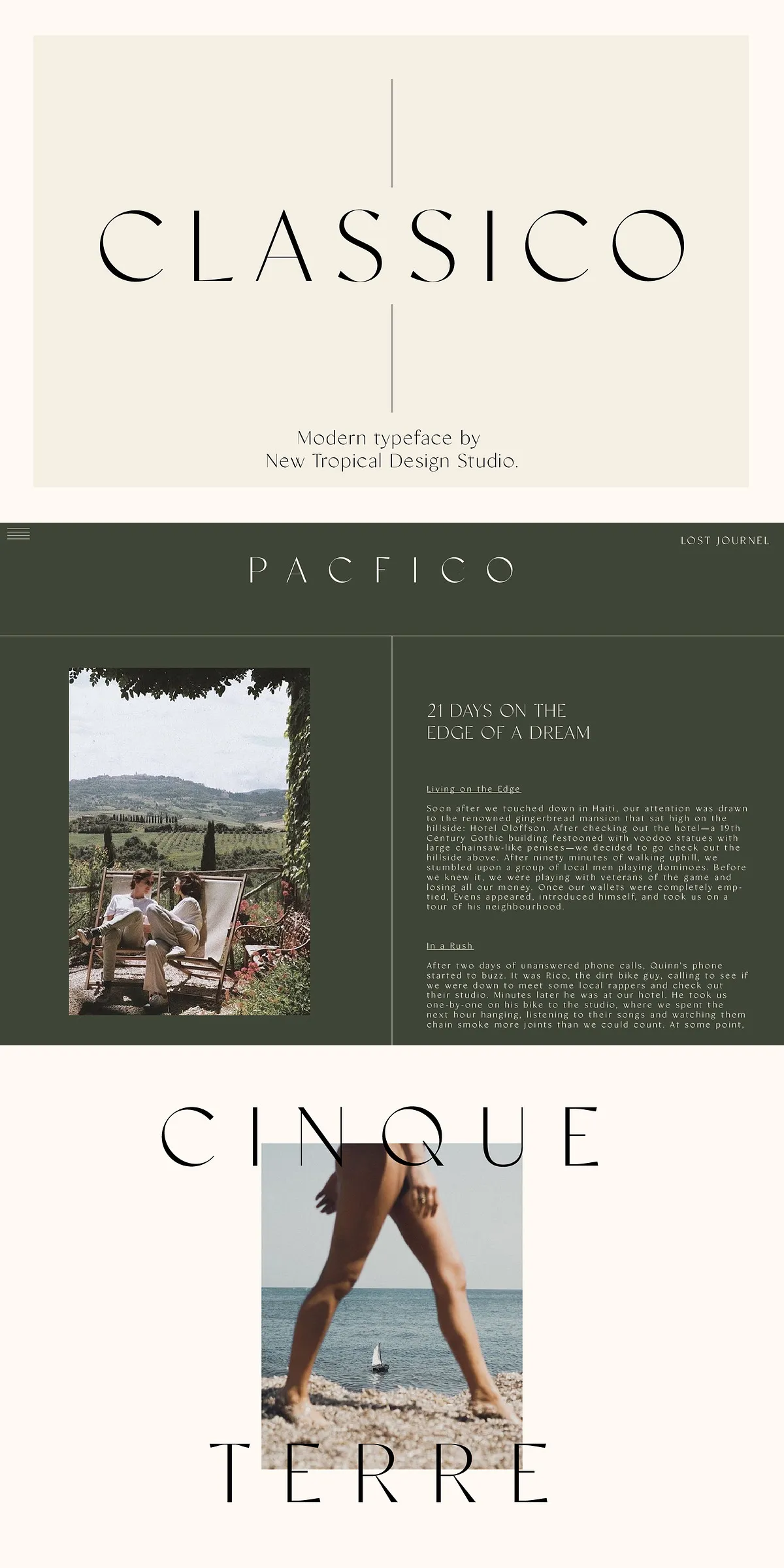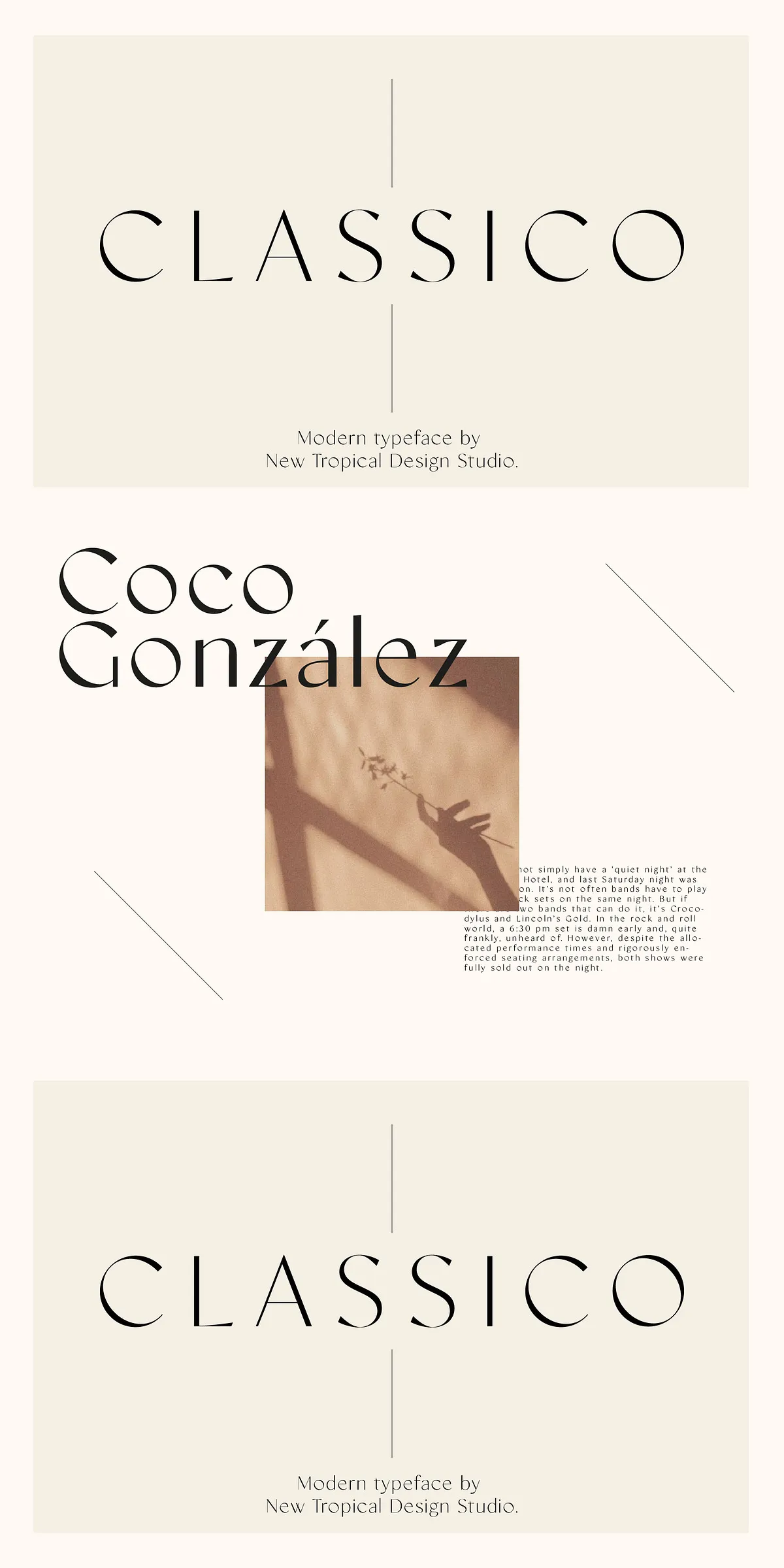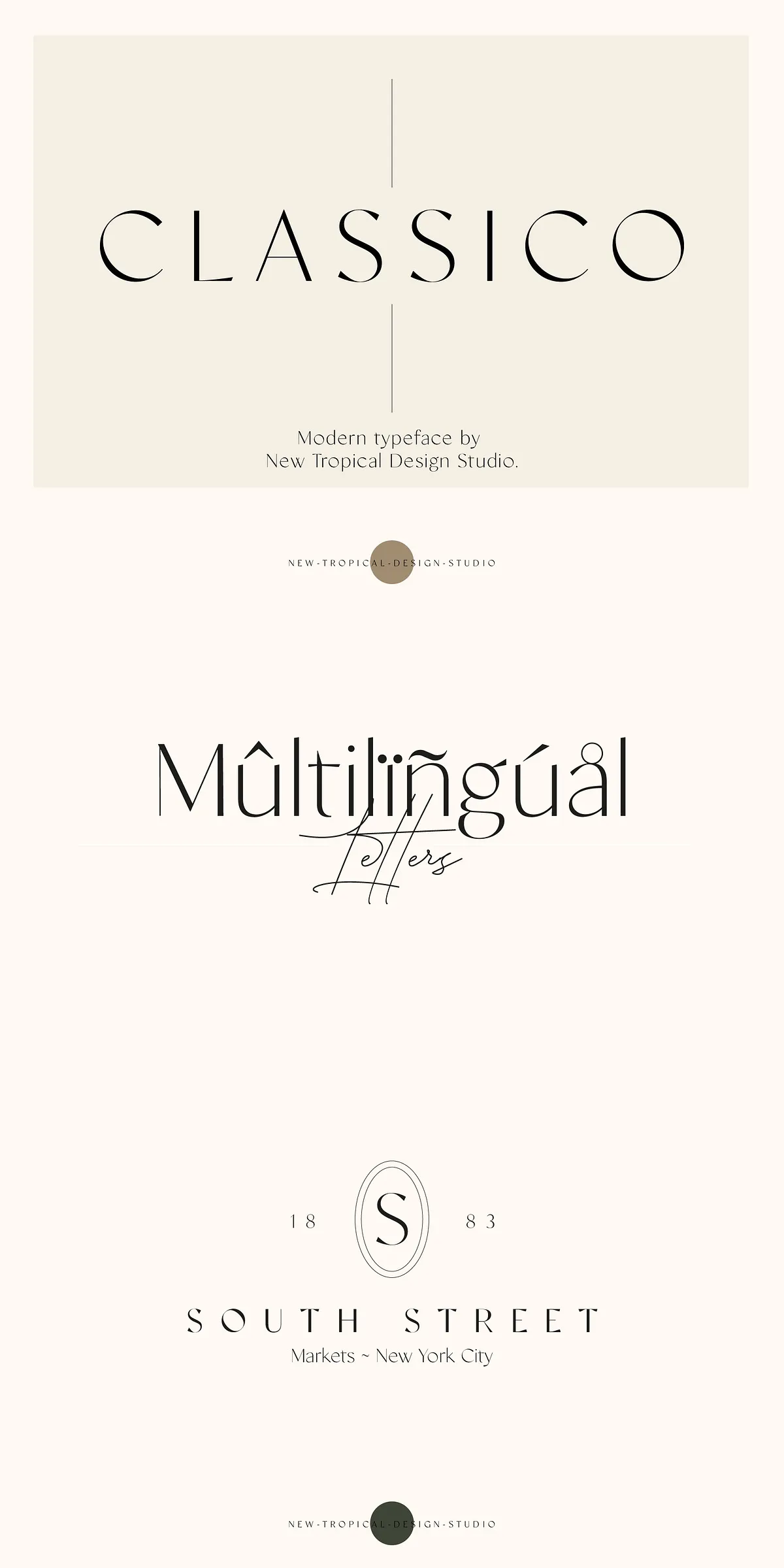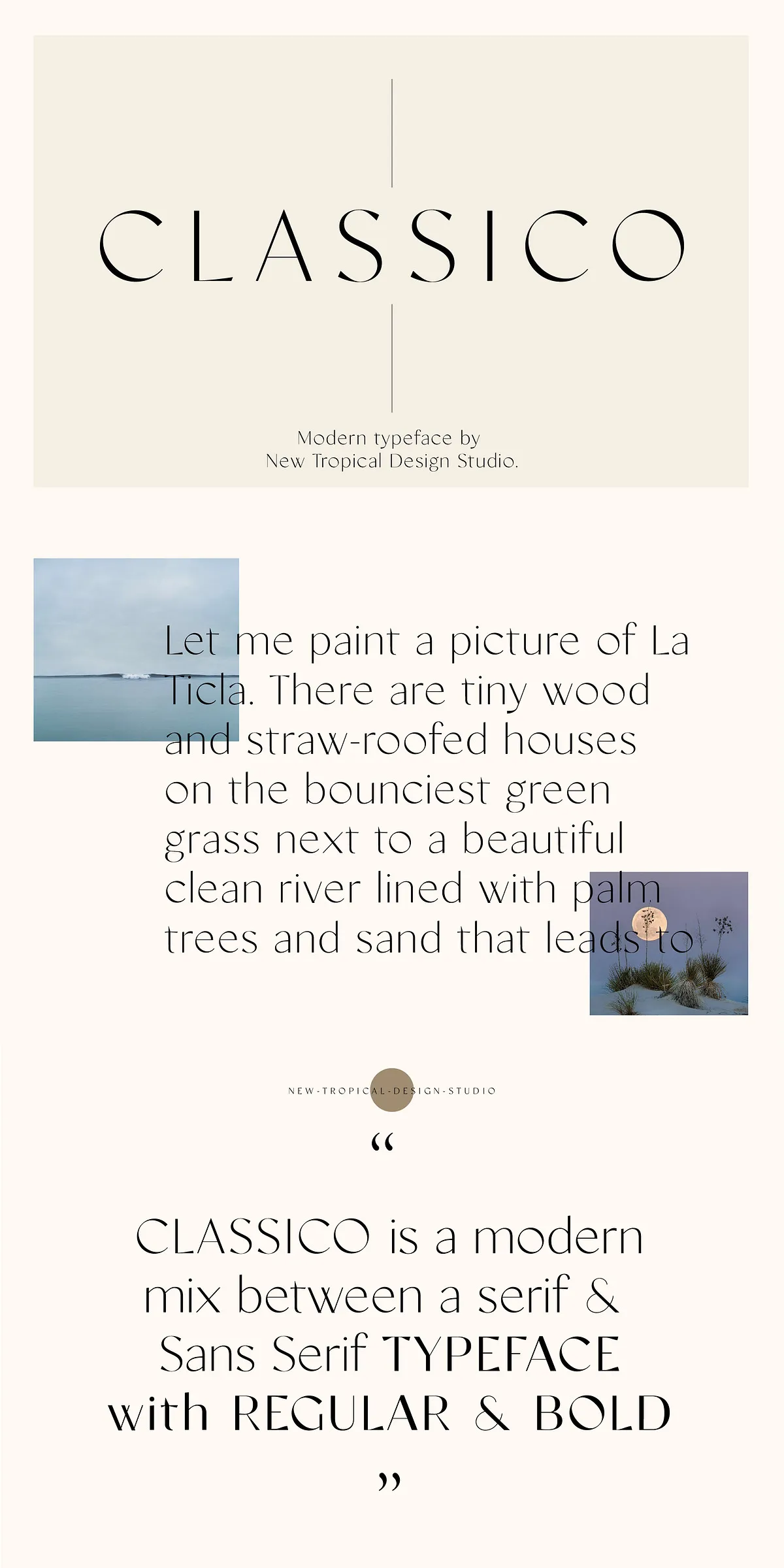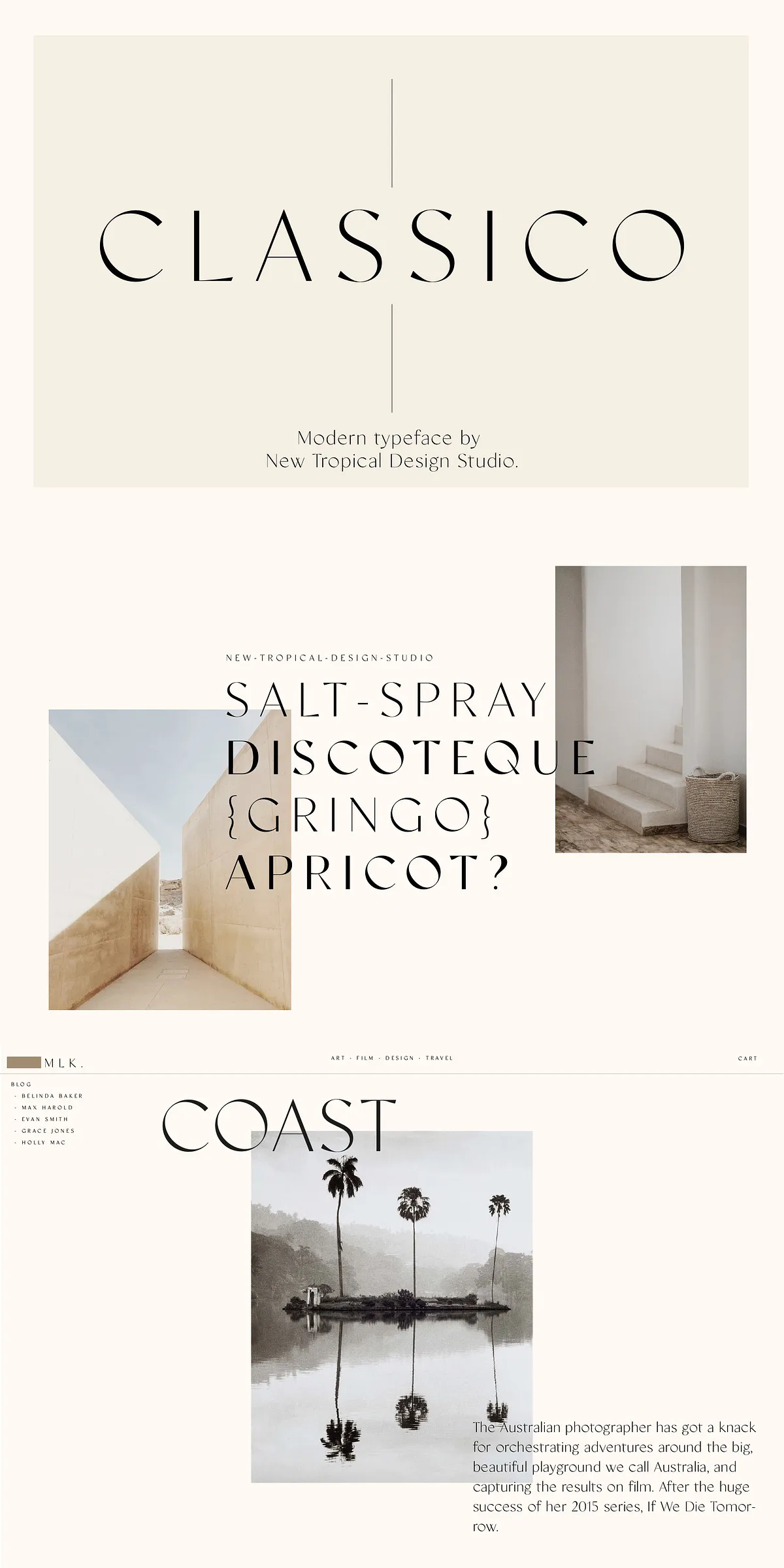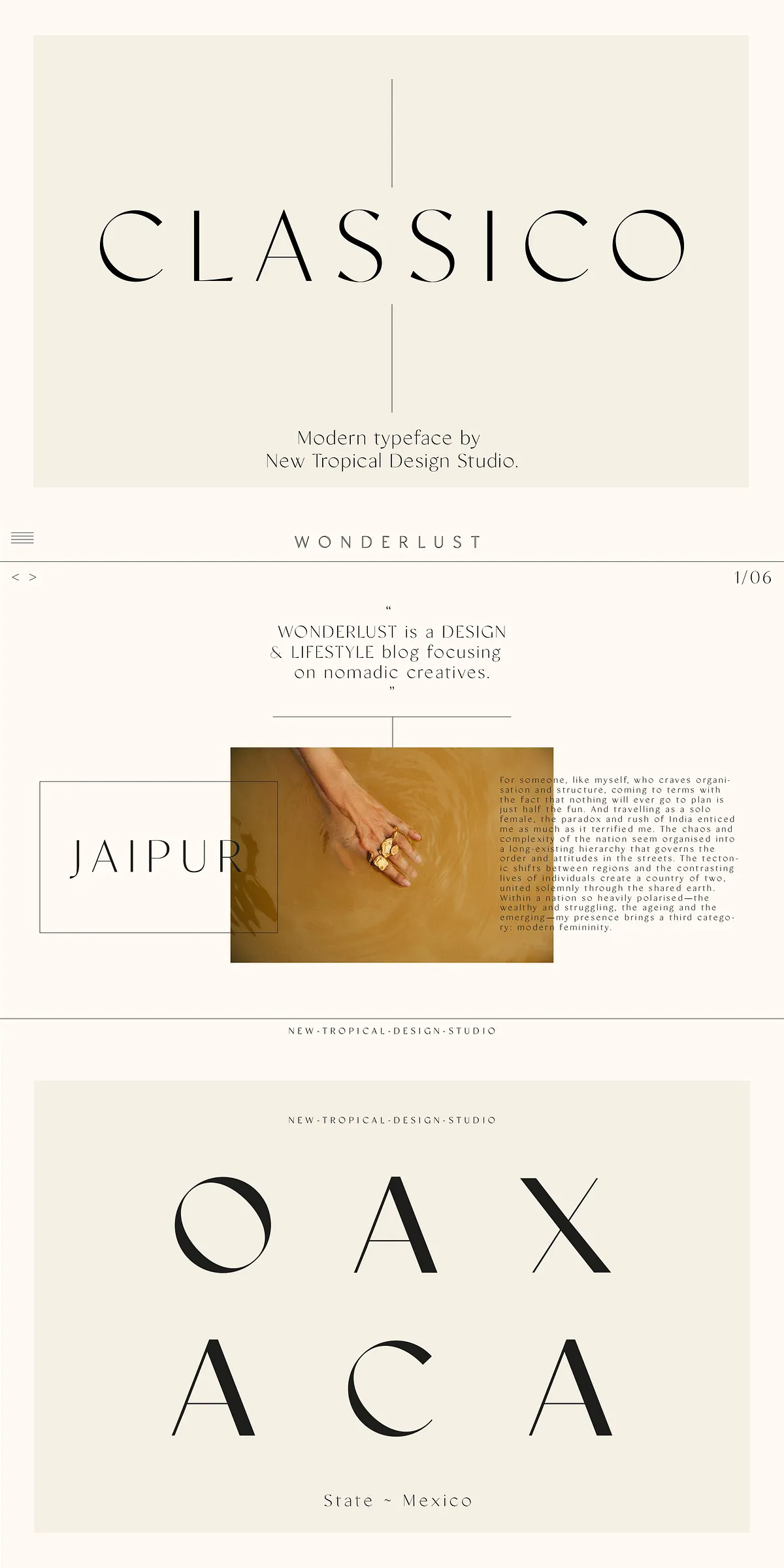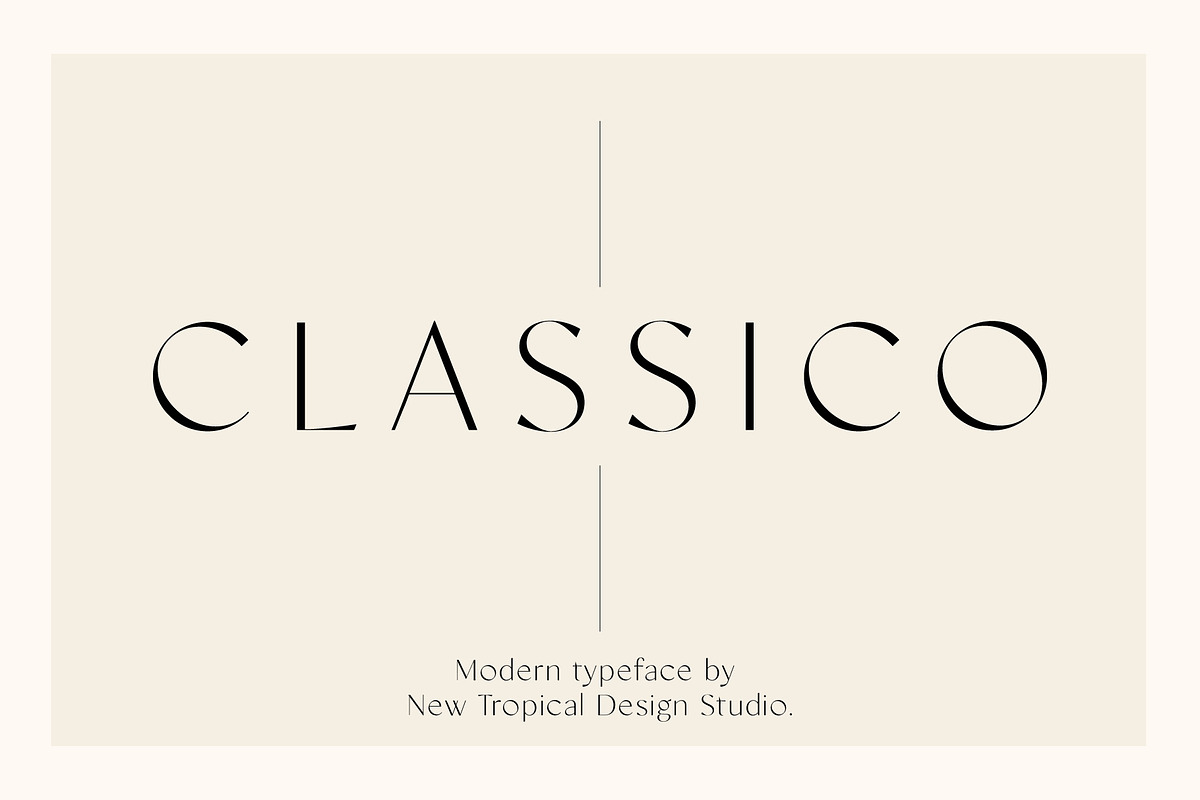
Step into the world of refined simplicity with Classico—a sleek, high-contrast serif font that masterfully blends timeless classicism with modern minimalism. Designed for creatives who value precision and poise, Classico is engineered to elevate luxury brand identities, fashion editorials, premium logo marks, and editorial layouts. Its clean lines, delicate weight variation, and harmonious proportions make it a standout choice in design spheres where less speaks louder.
Elevate Your Design with Two Powerful Styles: Regular & Bold
Classico isn’t just a single face—it’s a dynamic duo. With the Regular and Bold versions, you gain the flexibility to create powerful typographic hierarchies without cluttering your visual language. Use the Regular for delicate, graceful headlines or elegant body text, and switch to the Bold for commanding impact in logos, mastheads, or display typography. Both styles maintain consistent stroke contrast and refined serif details, ensuring visual harmony across all applications.
High Contrast, Timeless Appeal
The defining feature of Classico is its high-contrast structure, where thin strokes meet bold serifs with precision. This contrast creates a sense of motion and elegance, drawing the eye through your message with grace. Whether displayed at small text size or blown up for a full-page spread, the font retains clarity, legibility, and sophistication—no matter the medium.
Designed for Modern Creatives: Functional, Flexible, Beautiful
Classico isn’t just beautiful—it’s built for real design workflows. The font delivers comprehensive functionality across all major platforms:
- Complete character sets including uppercase and lowercase letters, numerals, punctuation, and special symbols.
- Full multilingual support for languages such as English, French, German, Italian, Spanish, Portuguese, Dutch, Swedish, and more—ideal for international branding and publishing.
- OpenType features like stylistic alternates and ligatures, accessible via your design software’s OpenType panel—empowering you to fine-tune every detail.
Perfect for: Fashion, Editorial, and Luxury Branding
Classico thrives in high-end creative environments where aesthetic precision matters. It’s more than a font—it’s a design statement:
- Fashion Branding: Create elegant logos, packaging, and lookbooks that project sophistication and quiet confidence.
- Editorial Design: Craft mastheads, article titles, and pull quotes that command attention with minimal effort.
- Luxury Product Identity: Use it in stationery, business cards, and signage to convey exclusivity and refined taste.
- Modern Weddings & Events: Add a touch of minimalist romance to invitations, programs, and signage.
- Web & UI Design: Build clean, stylish landing pages, portfolios, and digital experiences with typographic elegance.
Make Your Message Speak with Quiet Confidence
Classico doesn’t shout—it whispers with intent. It’s the font for designers who believe in the power of restraint, balance, and subtle distinction. With its clean geometry, expressive serifs, and high-contrast elegance, Classico transforms ordinary text into something unforgettable.